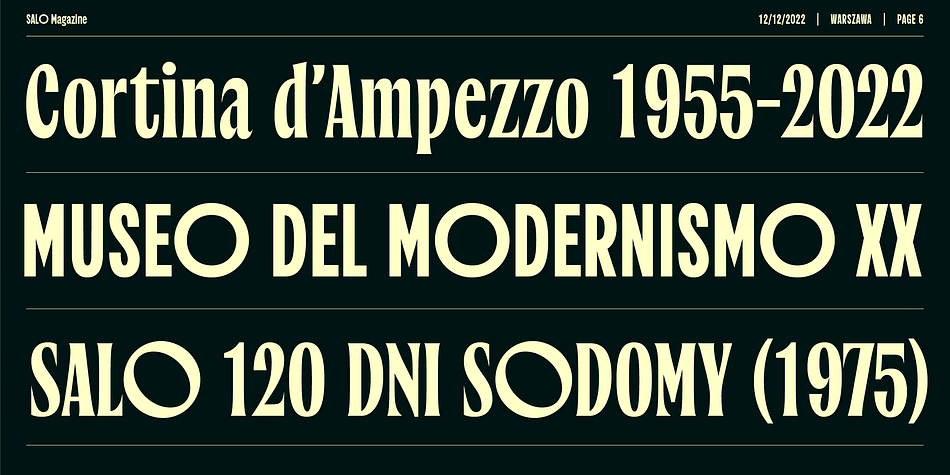
SALO
Designed by Mateusz Machalski, SALO is an art nouveau and sans serif font family. This typeface has five styles and was published by MACHALSKI.
SALO – is a hybrid of two Italian typographic worlds. The serif version refers to the beautiful and sophisticated typefaces found on the signs of cafes, restaurants, and fashionable boutiques. Its complemented by the sans variant, inspired by Italian modernism and road signage. All styles are based on the same core but with a totally different expressions. The biggest challenge during the project was designing all of the glyphs compatible to work as a 100% variable font. In the OTF version, SALO has 4 varieties: Serif, Semi Sans and Sans. The family of these typefaces is suitable both for posters, magazine headlines, and branding purposes where the character will count. It is worth experimenting and combining different varieties with each other. (You can’t use this font to make the “FRANCO” logo).